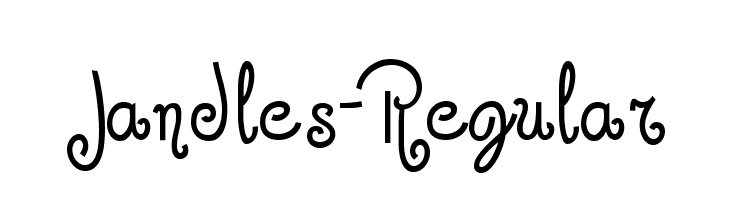
( Fonts by www.typodermicfonts.com - Ray Larabie )
A whimsical, decorative font with playful curls and swirls.
A bold, decorative font with sharp edges and rounded curves, blending modern and vintage styles.
( Fonts by Dieter Steffmann )
A traditional Blackletter font with ornate, angular letterforms and a vintage aesthetic.
( Fonts by imagex )
A bold, futuristic font with geometric shapes and consistent thickness.
( Fonts by Manfred Klein - manfred-klein.ina-mar.com )
Cartoon animal illustrations form each character in a humorous, decorative style.
A dynamic, brush-style handwritten font with expressive cursive strokes.
( Fonts by Abo Daniel Studio )
A playful, bold script font with a handwritten, flowing style.
A stylish, handwritten font with elongated, flowing lines and a sophisticated appearance.